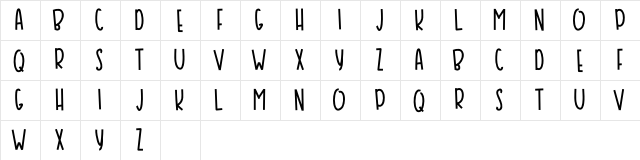
BANSKY Regular
Design Context for BANSKY Typeface
BANSKY offers clean, dependable letterforms without strong stylistic allegiance, making it a practical choice for designers who need flexibility.
Pro Tip: Use BANSKY in both headline and body roles to test its range before committing to a single application.